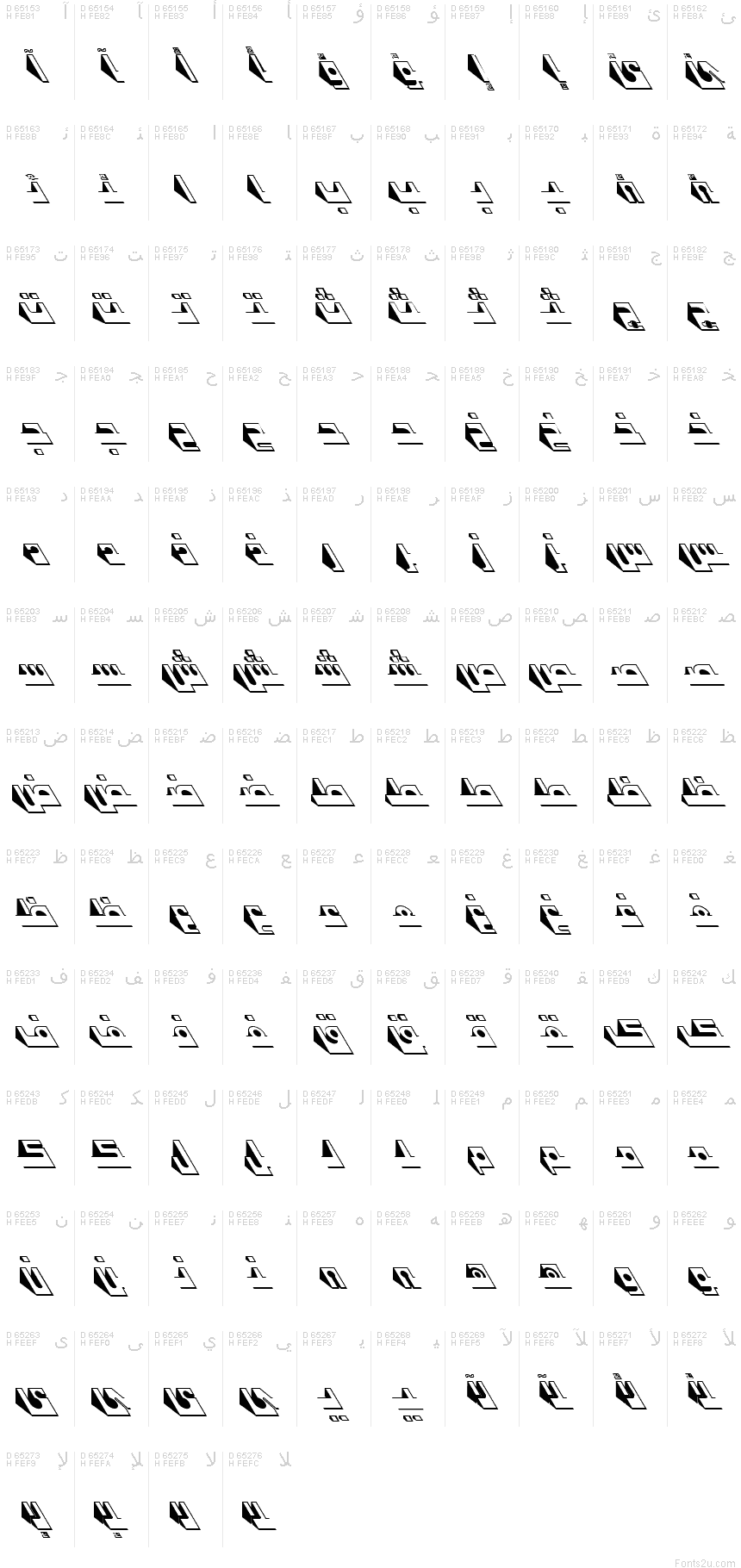
B Kaj by Borna Rayaneh is a free Arabic 3D display font defined by tall angular lettering and long black shadow wedges that push each form forward. The repeated diagonal depth gives the design a hard poster-like rhythm, so the font reads less like ordinary display type and more like carved signage translated into sharp graphic planes.
That strong shadow structure makes B Kaj a natural choice for event posters, album art, gaming graphics, packaging, and storefront branding, where the free font can give short text a sense of depth without extra effects. It has enough presence for headlines, title cards, and cover lines, especially when you want a few words to carry the whole layout.